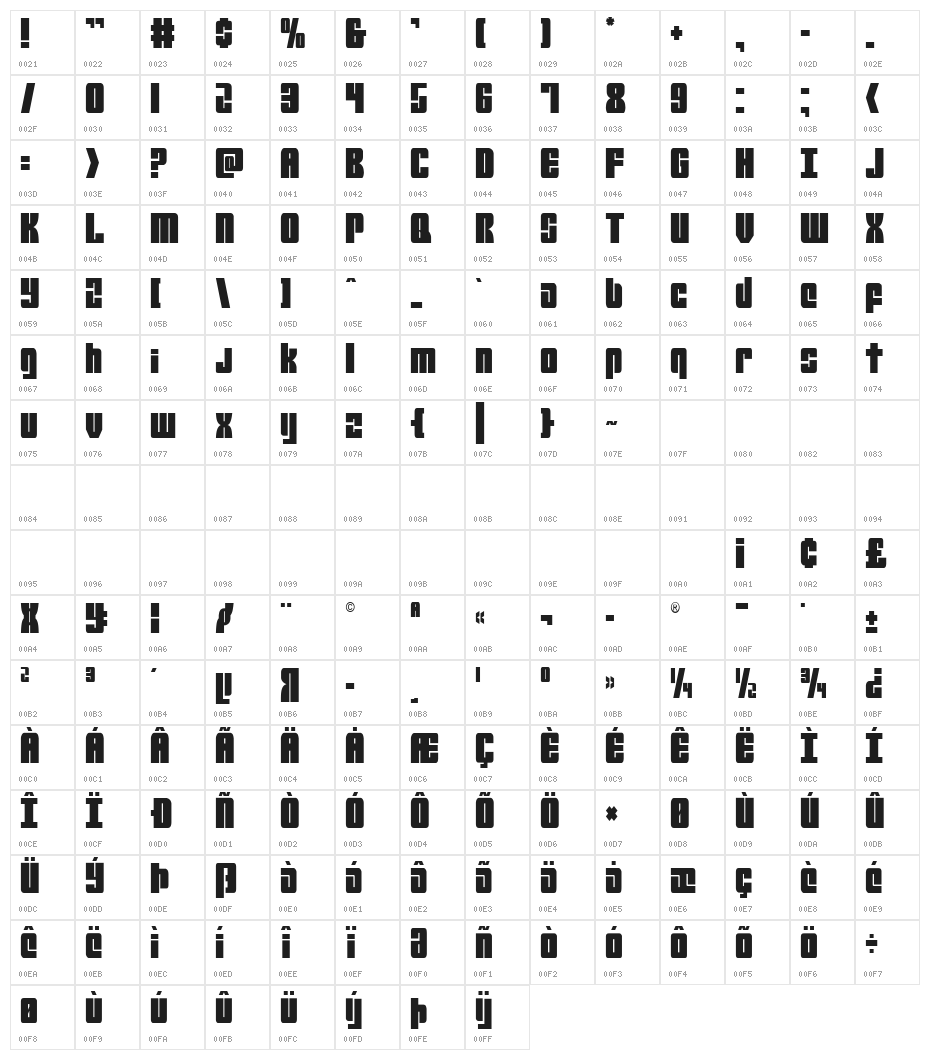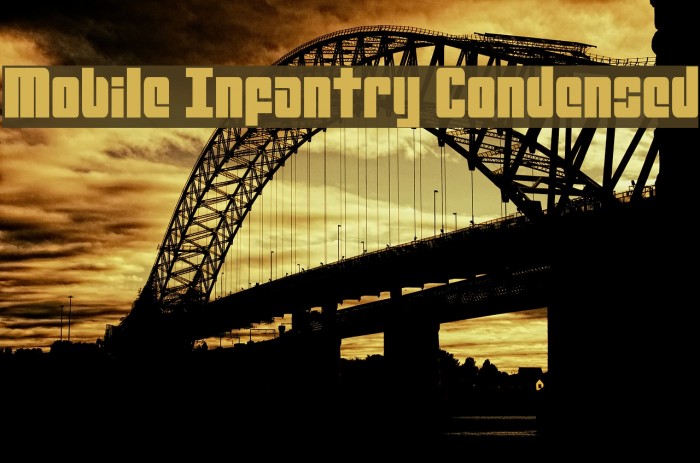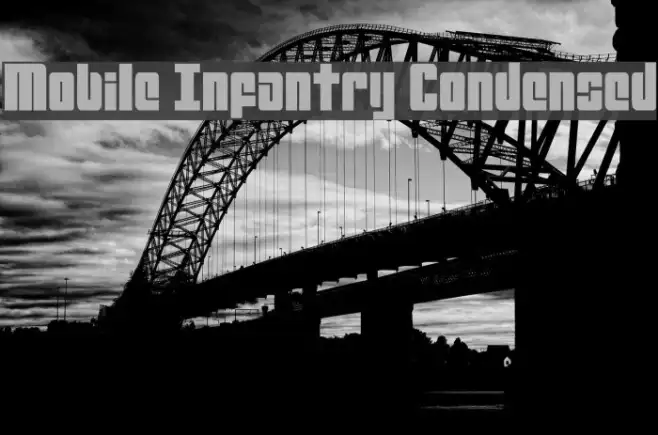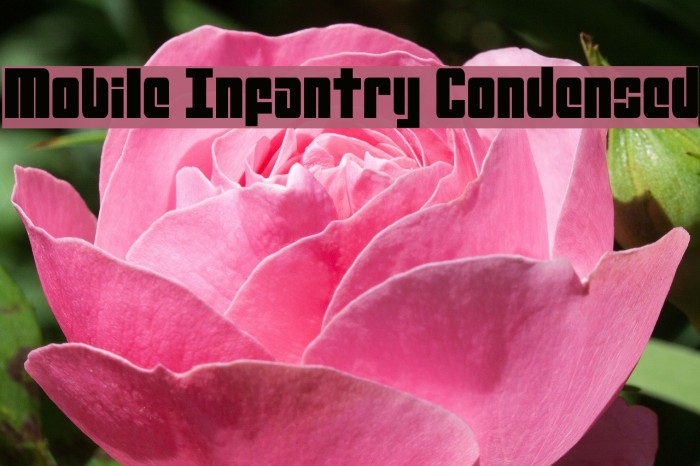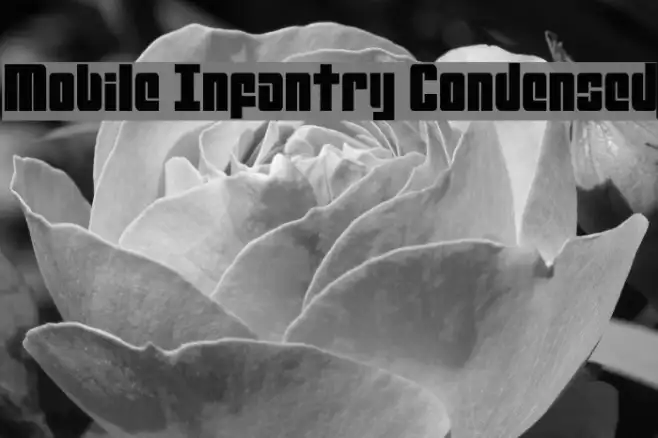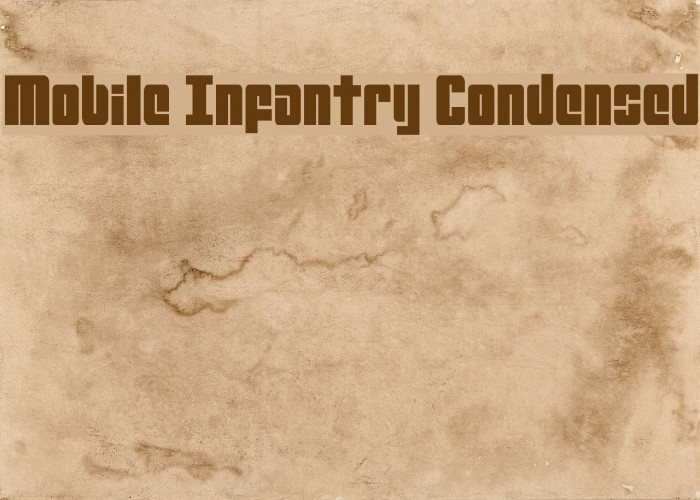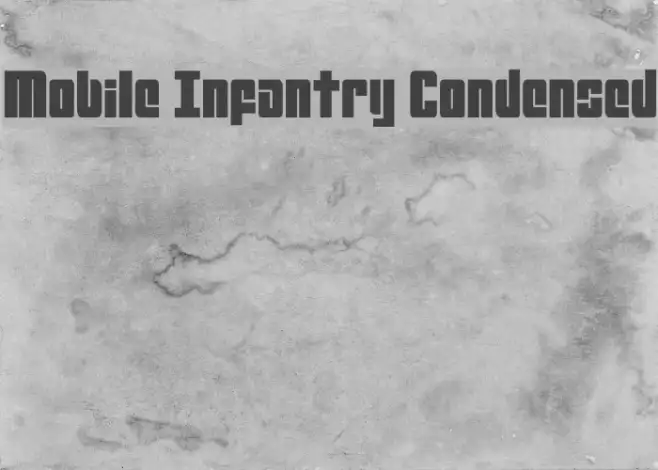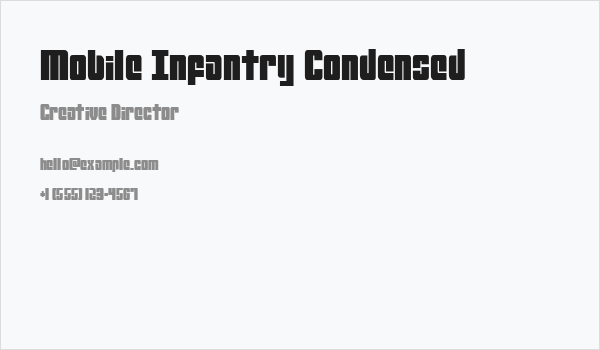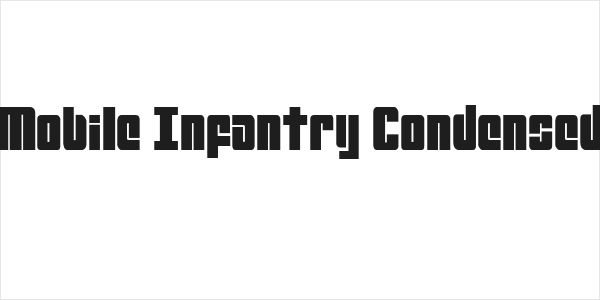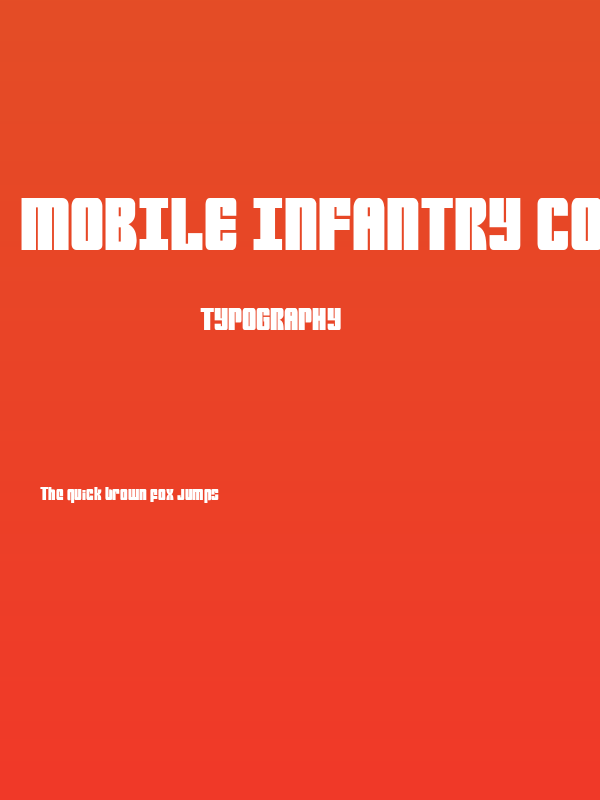
Mobile Infantry Condensed Font
Mobile Infantry Condensed Description
This font features a bold and condensed style with a strong, impactful presence. The characters are blocky and geometric, with uniform stroke widths that create a cohesive and powerful look. The uppercase and lowercase letters maintain a consistent height, enhancing the condensed appearance. The numerals and special characters follow the same robust design, making them easily legible and visually striking. This font is ideal for projects that require a commanding and modern aesthetic.
| Proposed Projects | Ideal for posters, headlines, branding, and any design needing a bold statement. |